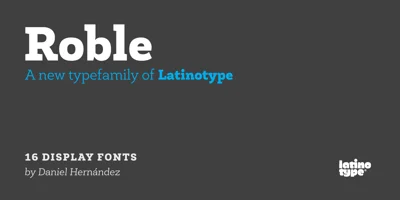
Roble Font
Roble Font is ideal for outdoor adventure branding, natural product packaging, sustainable living magazines, eco-lodge signage, organic food labels, environmental conservation materials, rustic cabin decor, and handcrafted artisan products.
This font is exciting because it embodies the strength and endurance of ancient oak trees with robust letterforms that convey stability, natural authenticity, and timeless reliability. The Roble Font captures the essence of earth-connected living, making any text feel grounded, trustworthy, and deeply rooted in nature's wisdom and enduring values.
The Roble Font family features nature-inspired variations including Regular, Bold, Light, Rustic, Weathered, Condensed, Extended, and Organic versions, providing eco-conscious designers with comprehensive tools to create authentic typography that resonates with environmentally aware audiences seeking natural authenticity.
Connect with nature through Roble Font that brings organic authenticity to every design project. This earth-inspired typeface combines natural aesthetics with modern functionality, making it perfect for sustainable brands, outdoor companies, and organizations promoting environmental consciousness. The font's sturdy character design ensures your message feels reliable and trustworthy while maintaining excellent readability across various applications. Whether you're developing eco-friendly brand identities, creating outdoor adventure marketing, or designing sustainable product packaging, Roble Font delivers the natural typography that speaks to consumers seeking authentic, environmentally responsible choices. Its versatile design works beautifully across digital and print media while preserving the organic strength that makes nature-focused communications feel genuine and deeply connected to the earth's enduring wisdom.